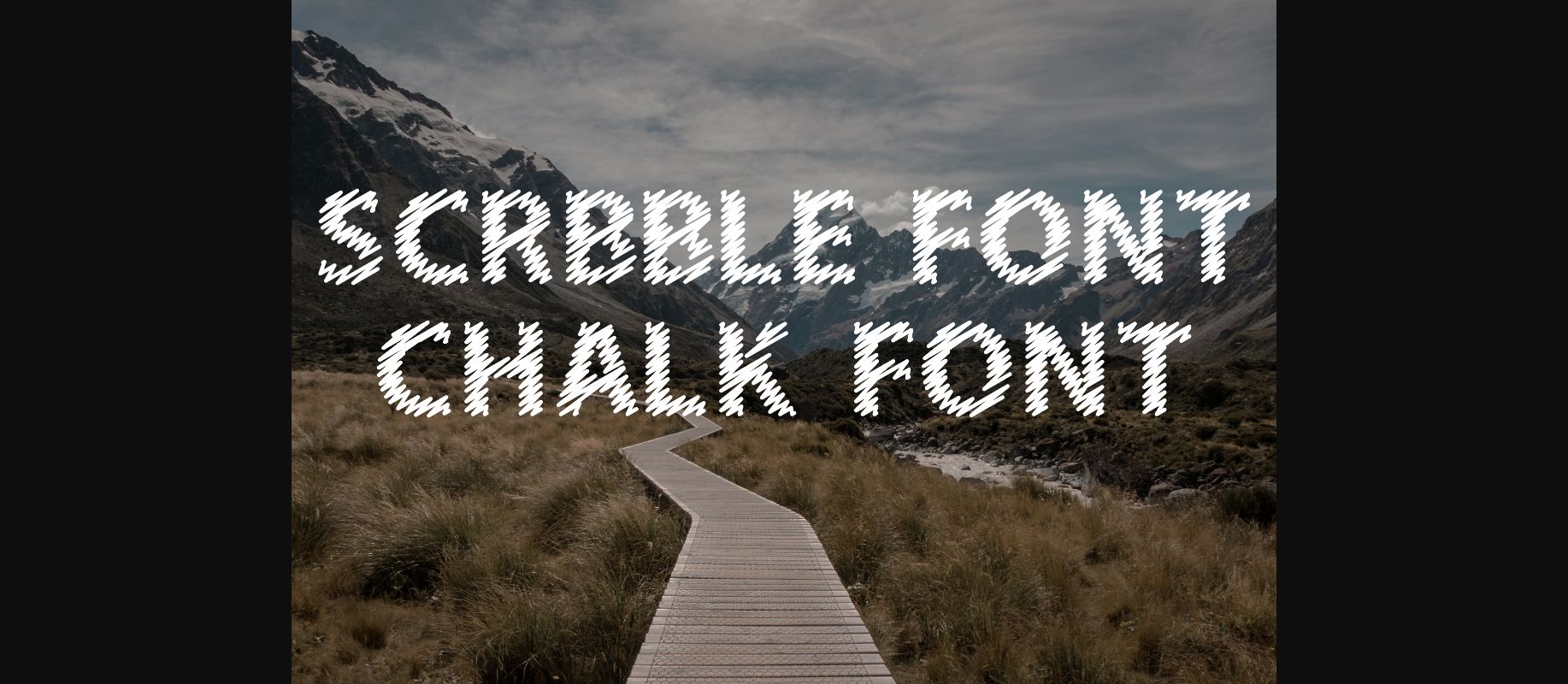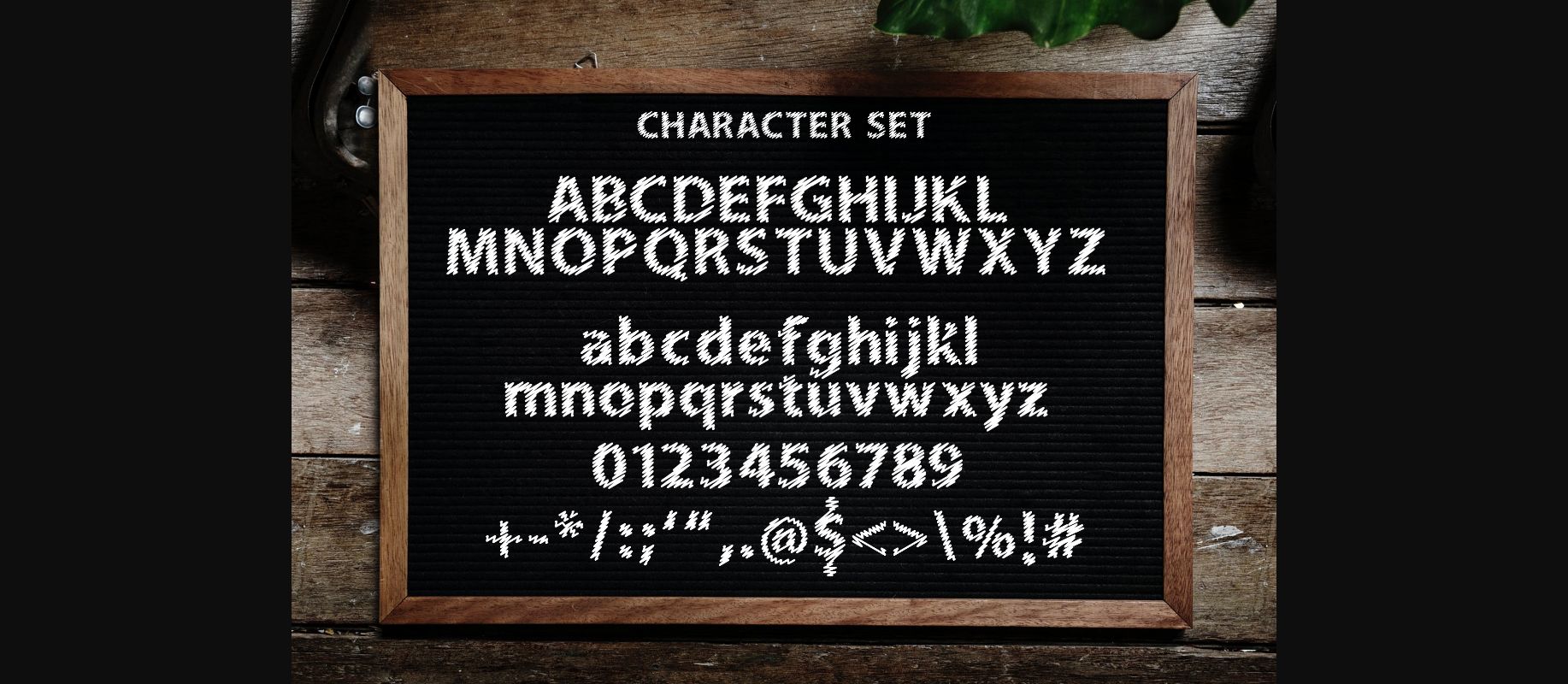
About Dusker Scribble Font
Dusker Scribble has a scribble effect or chalk effect texture to it. If you are looking for a scribble board Chalk effect font, then Dusker Scribble is just what you’re looking for. Dusker Scribble is a cool font and looks great on t-shirts, logos, posters and much more!